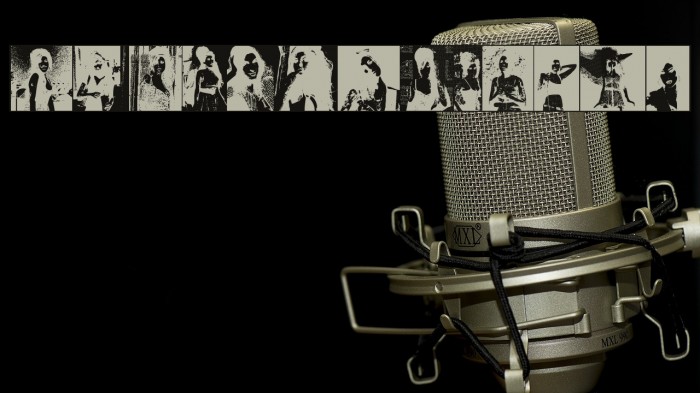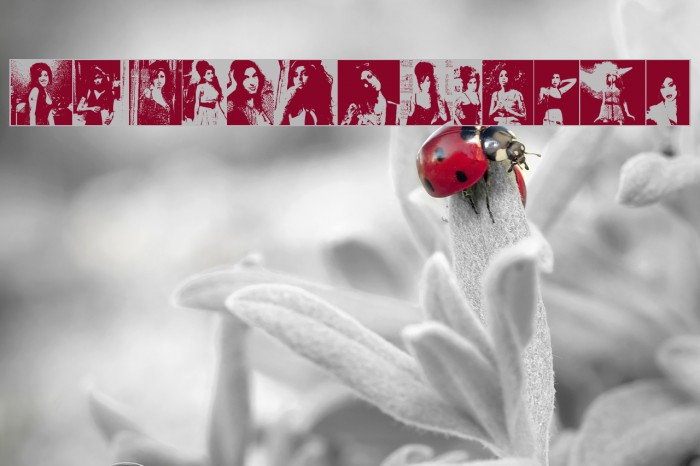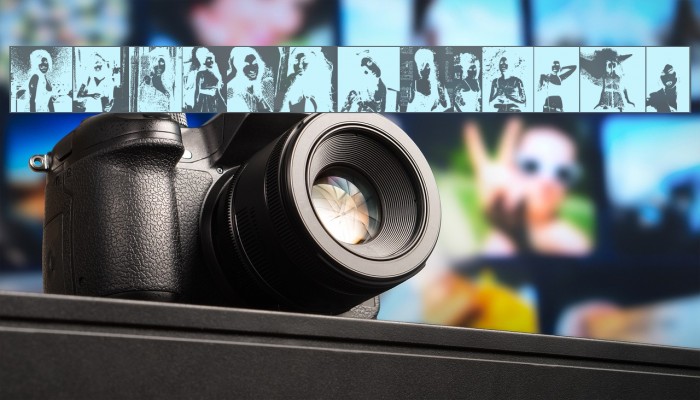
AmyBats4 Font
AmyBats4 Description
A decorative display set featuring high-contrast, black-and-white photographic portraits within rectangular frames, each representing a different character or symbol. The style is visually striking, with each glyph appearing as a unique image rather than a traditional typographic form.
| Overall Style | Decorative, Artistic, Grunge |
| Use Case | Logos, Headlines, Posters, Artistic projects |
| Proposed Projects | Album covers, event posters, zines, alternative magazine titles, themed party invitations. |